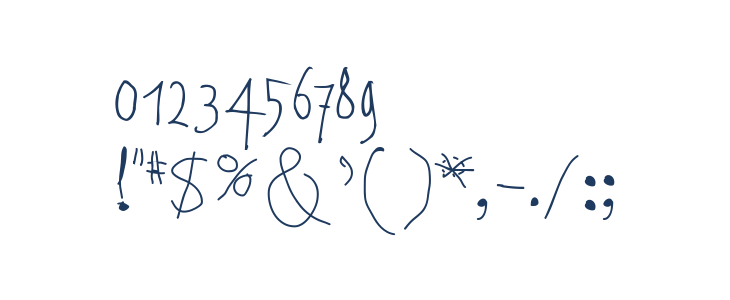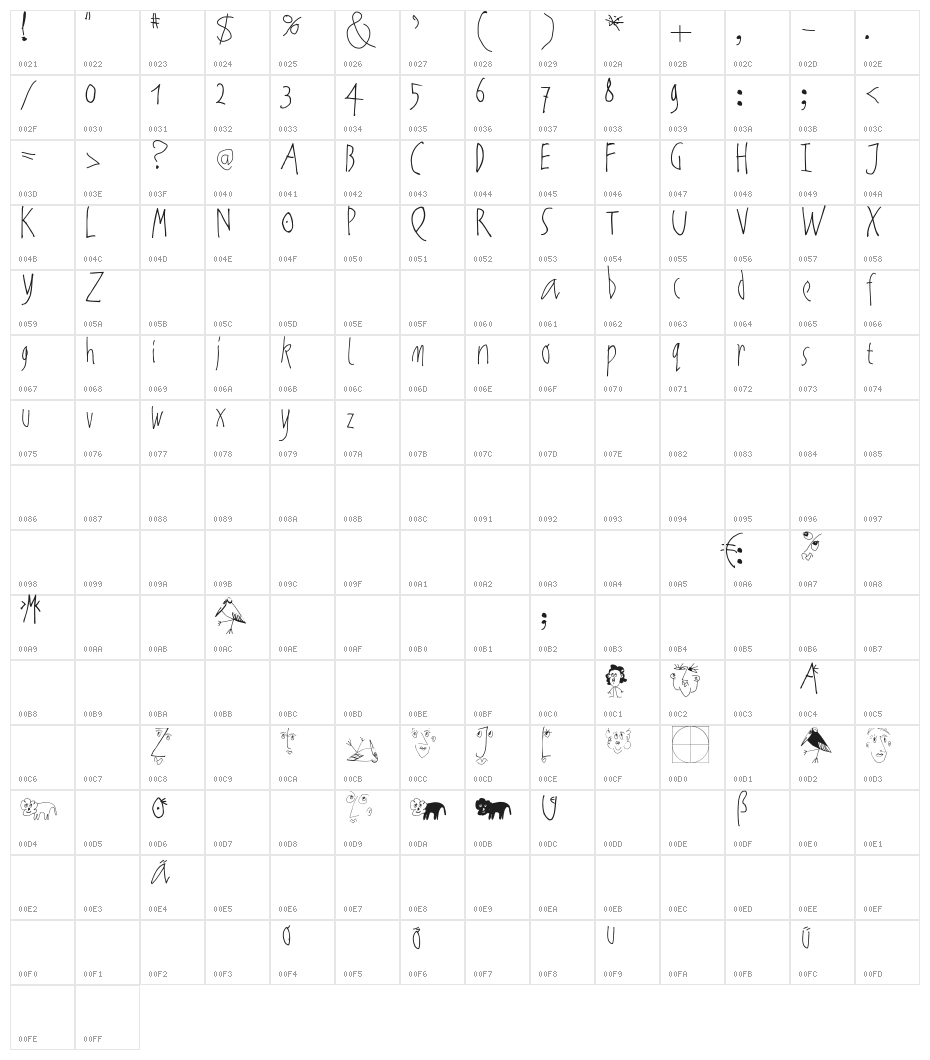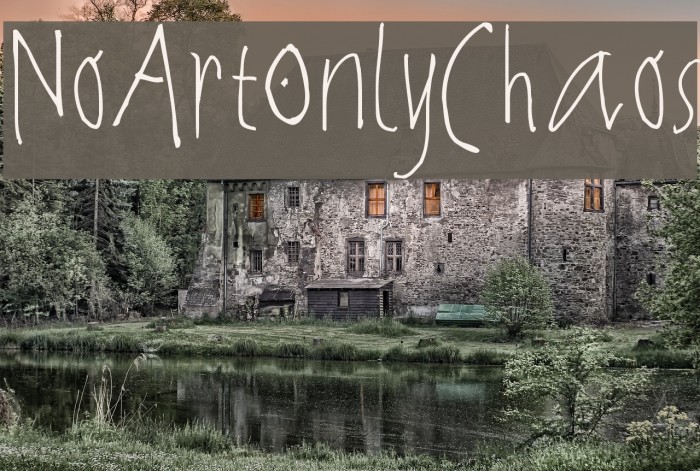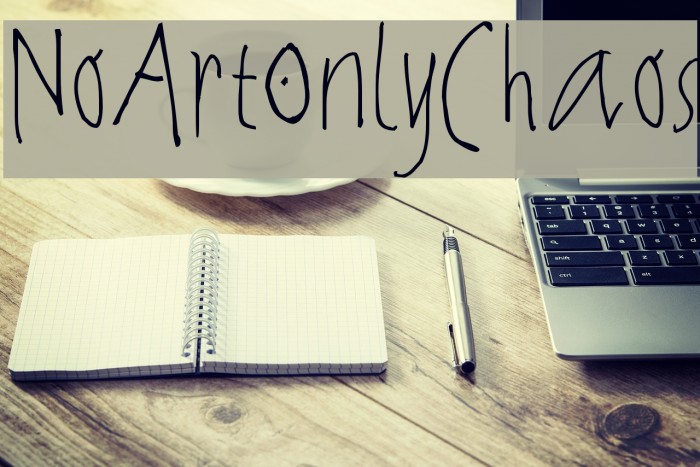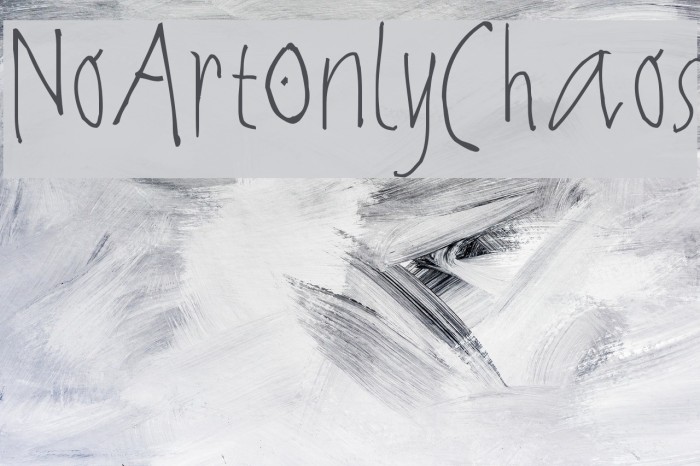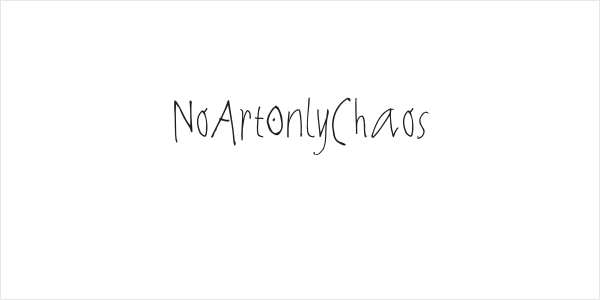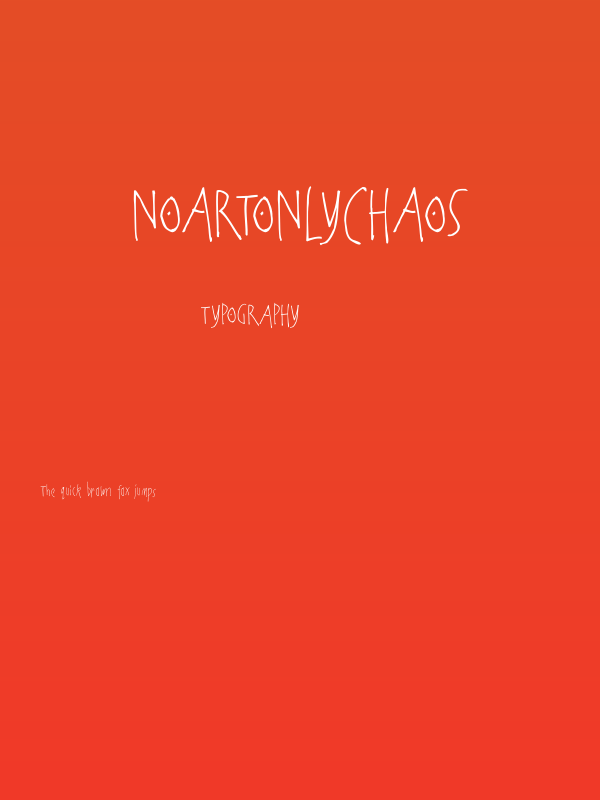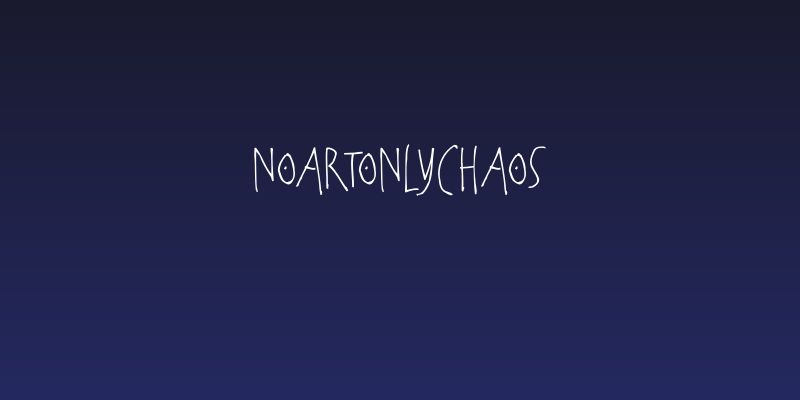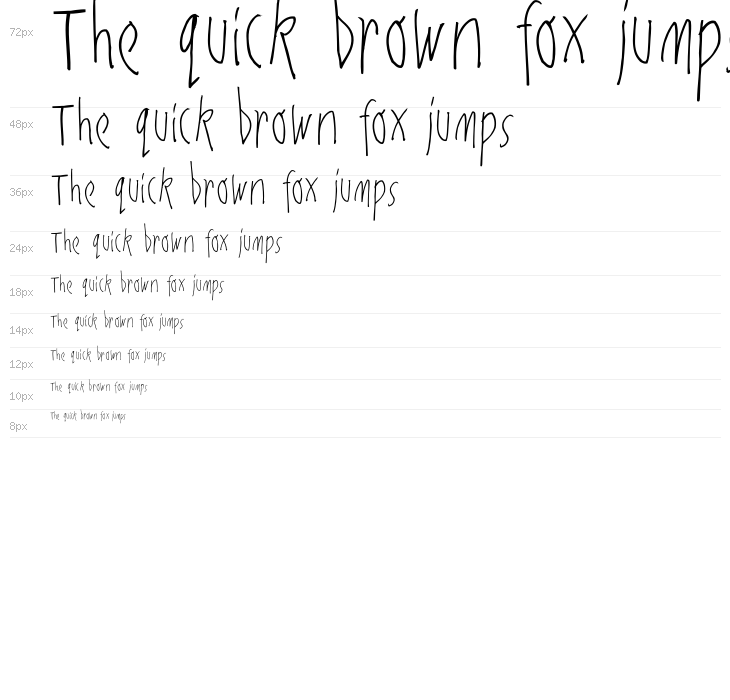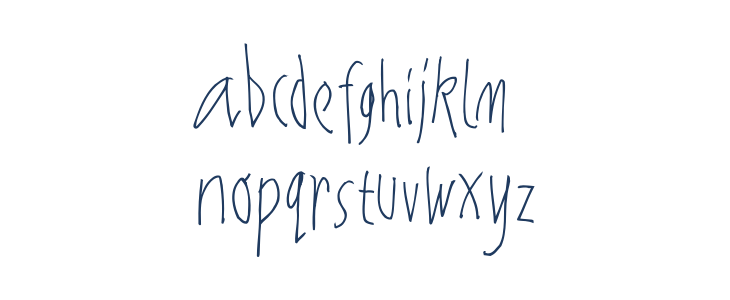
NoArtOnlyChaos Font
NoArtOnlyChaos Description
This font exhibits a playful and whimsical handwritten style, characterized by irregular strokes and a casual, informal appearance. The letters are tall and narrow, with a slight tilt that adds to the dynamic feel. The uppercase and lowercase letters maintain a consistent style, with quirky variations that give each character a unique personality. The numbers follow the same playful design, ensuring a cohesive look across all characters. Special characters are creatively integrated, enhancing the font's overall charm. This font is perfect for projects that require a touch of creativity and individuality.